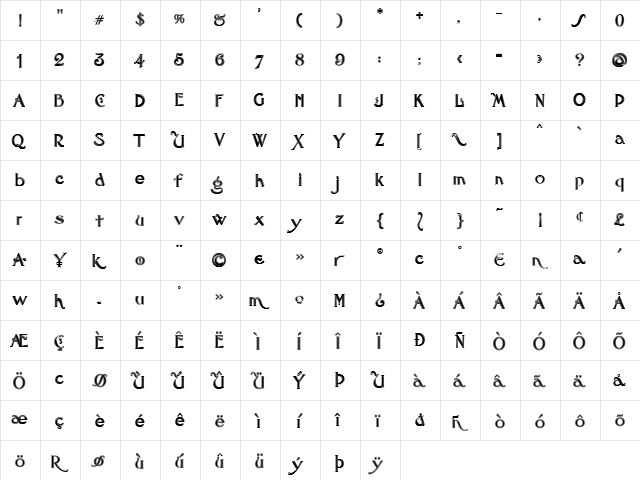
LHF Tyler Inline Regular
Design Context for LHF Tyler Inline Typeface
LHF Tyler Inline brings ornamental detail and strong personality to headlines and identities, where visual impact matters more than quiet functionality.
Font Pairing: Pair with a clean neutral sans-serif for body copy to let LHF Tyler Inline's character lead without overwhelming the composition.
Pro Tip: Treat LHF Tyler Inline as the centrepiece of your typographic hierarchy. One strong heading set in a decorative face can carry an entire layout.